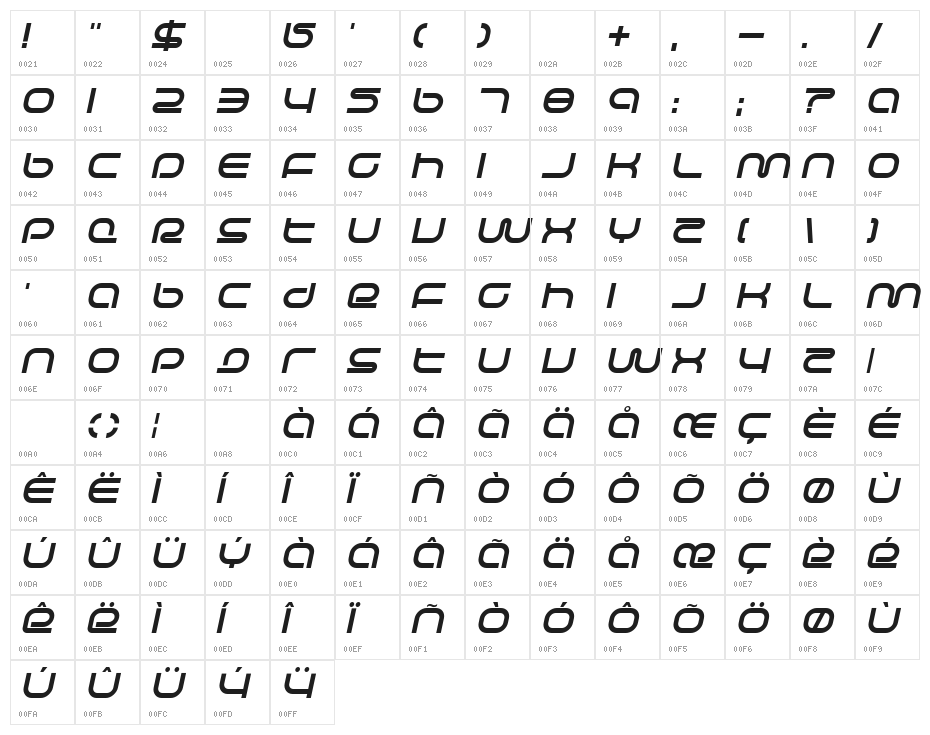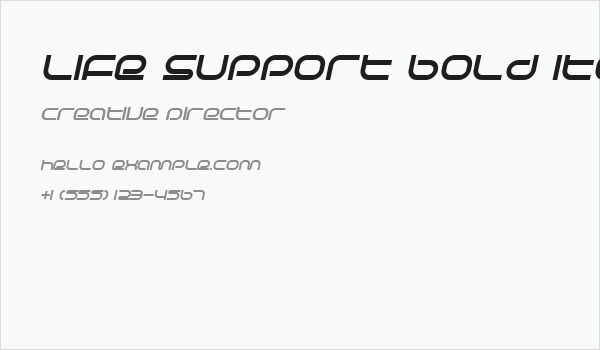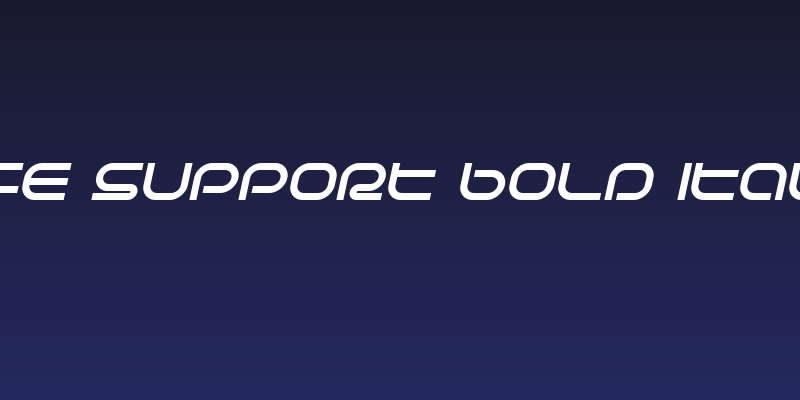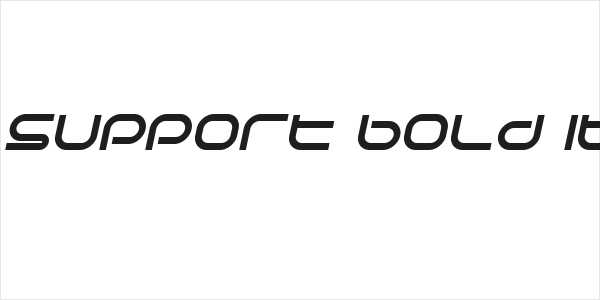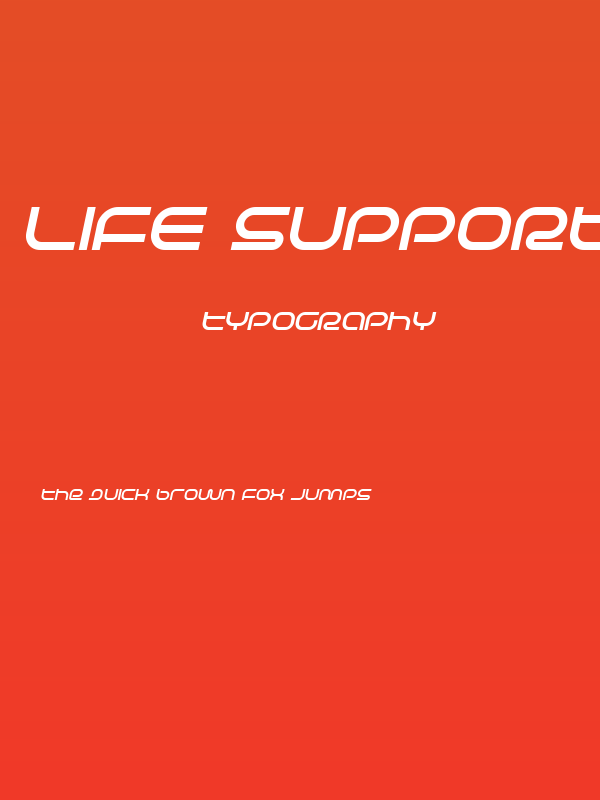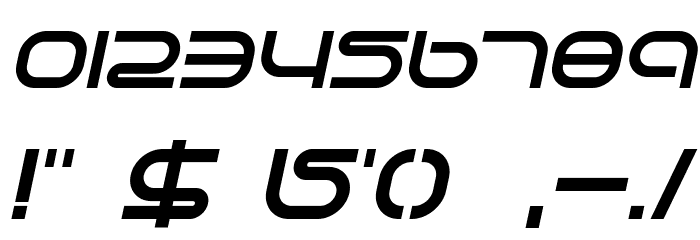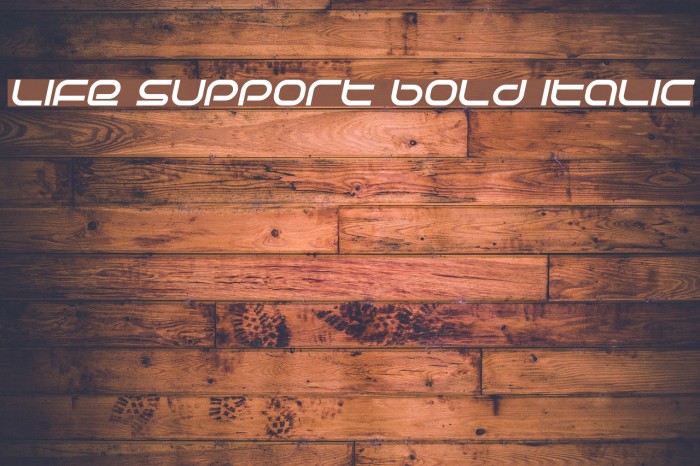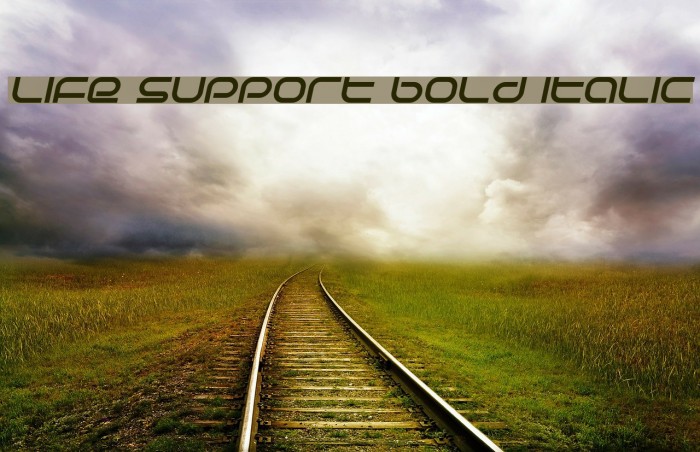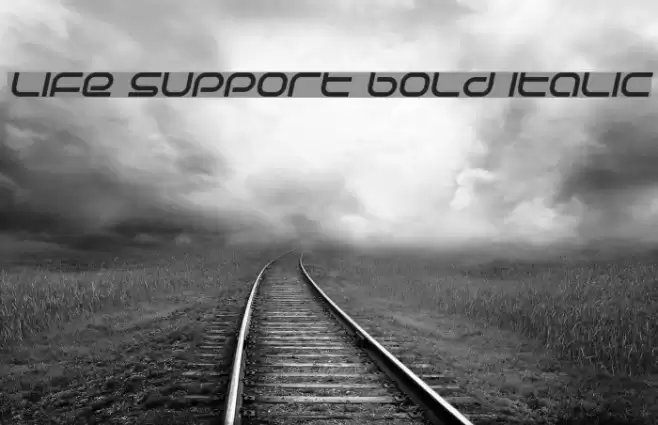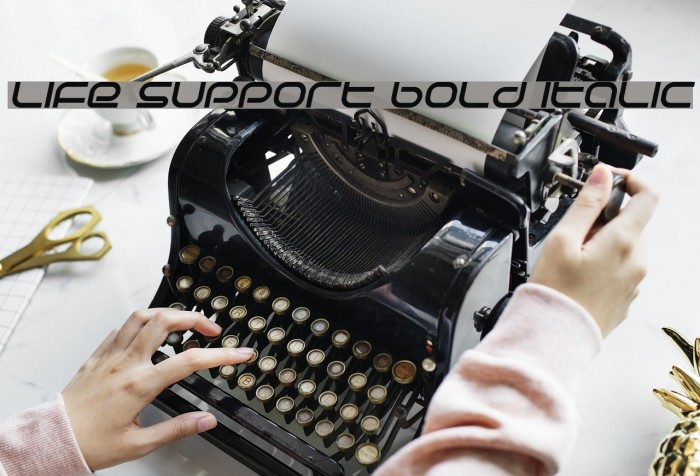
Life Support Bold Italic Font
Life Support Bold Italic Description
This font features a futuristic and sleek design, characterized by its bold and italicized style. The letters are slightly slanted, giving a sense of motion and dynamism. The strokes are consistent in thickness, providing a uniform appearance across all characters. The rounded edges and smooth curves contribute to its modern aesthetic, making it suitable for contemporary design projects. The numerals and special characters maintain the same stylistic elements, ensuring cohesion throughout the font set.
| Proposed Projects | Ideal for technology branding, sci-fi themed posters, modern web design, and innovative product packaging. |